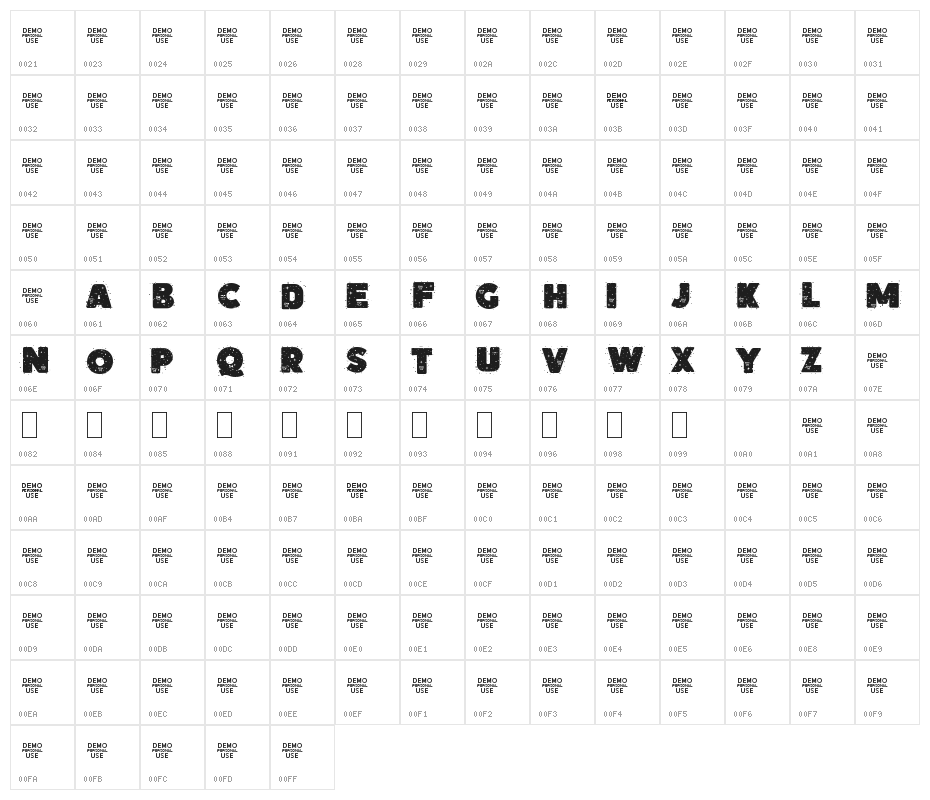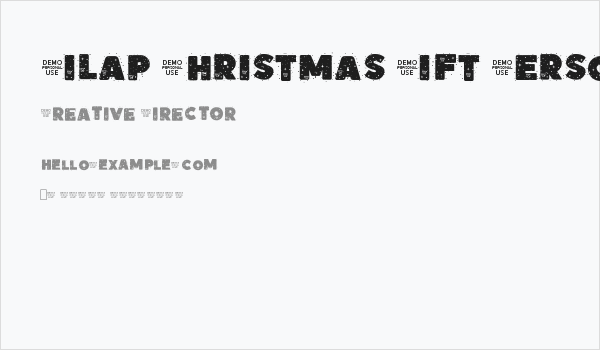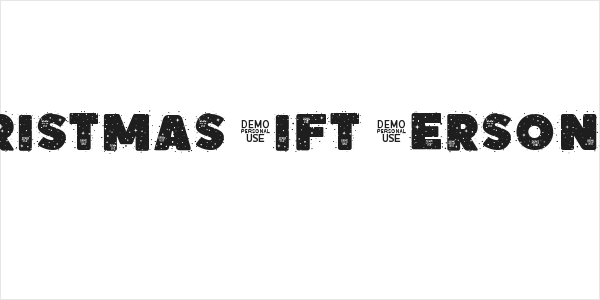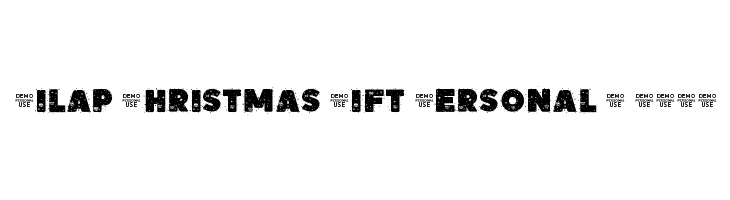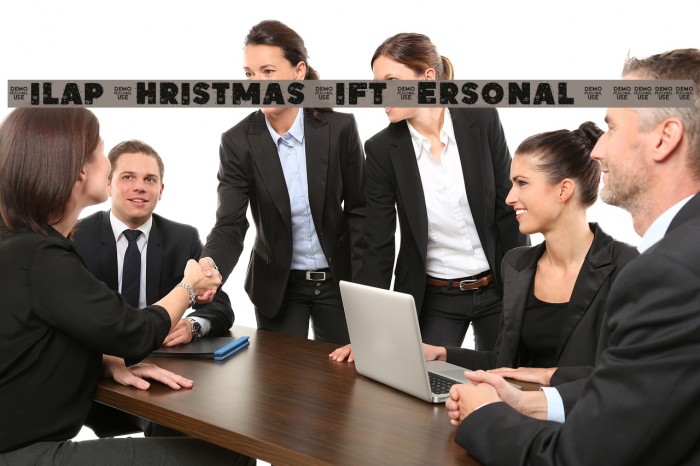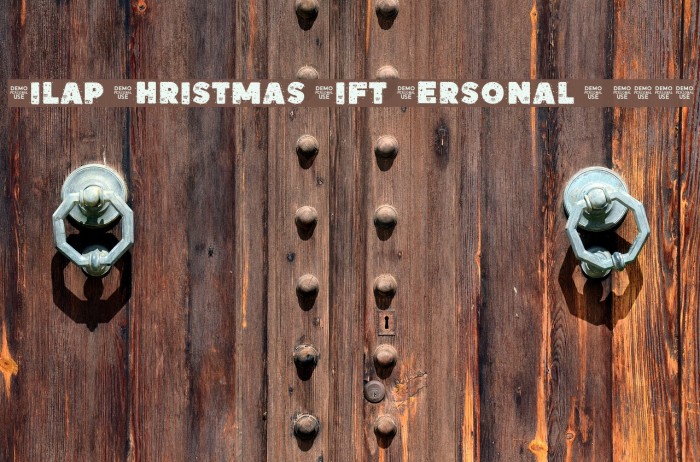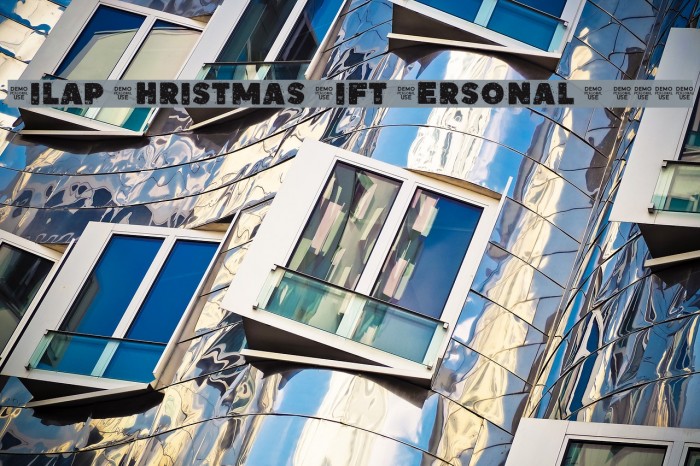
Zilap Christmas Gift Personal U DEMO Font
Zilap Christmas Gift Personal U DEMO Description
This font features a bold and playful design with a distressed texture that gives it a vintage and rustic feel. The uppercase letters are prominently displayed, with a consistent thickness that adds to its bold appearance. The texture resembles a speckled or worn-out look, which adds character and uniqueness to each letter. This style is reminiscent of festive or holiday themes, making it ideal for seasonal projects. The font's overall appearance is eye-catching and decorative, suitable for creating standout headlines or titles.
| Overall Style | Vintage, Decorative |
| Proposed Projects | Ideal for holiday cards, festive posters, event invitations, and decorative signage. |